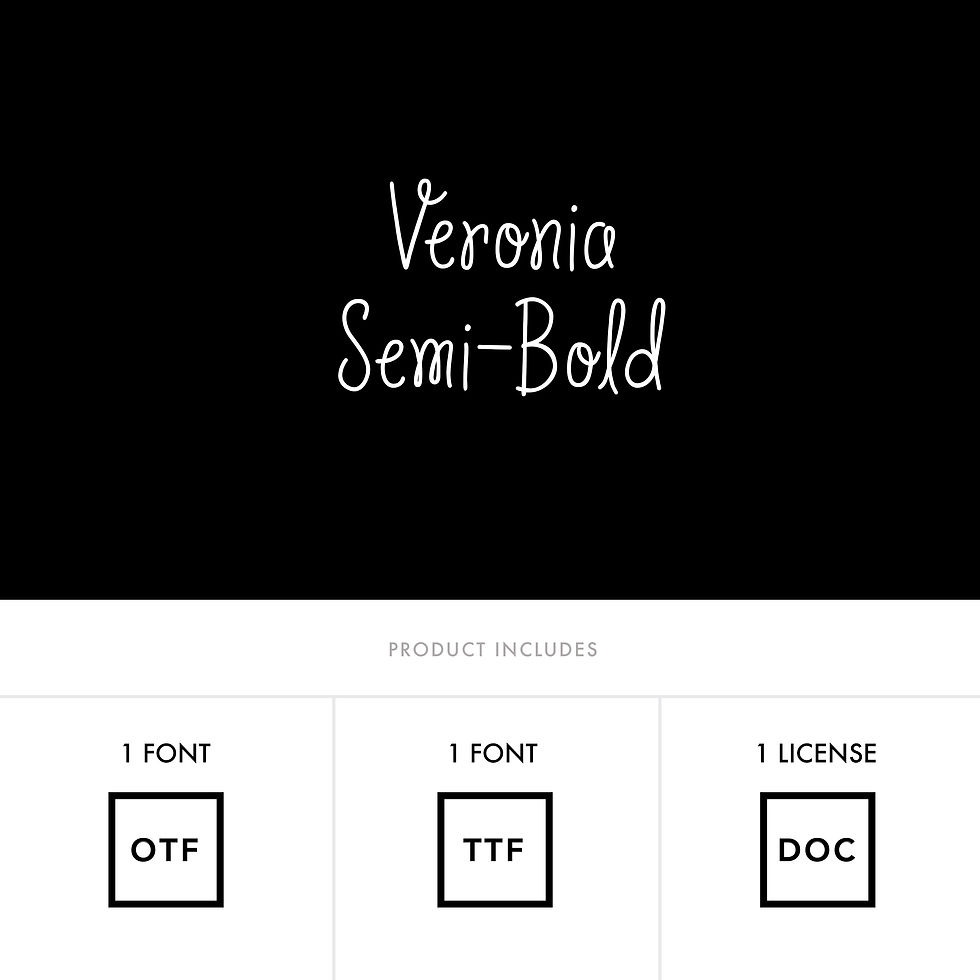
VERONIA SEMI-BOLD FONT is an elegant, handwritten mono-line font with alternates and Latin Pro Characters.
Use Veronia font for stationery, greeting cards, invitations, magazines and websites and more.
Veronia Semi-Bold Font